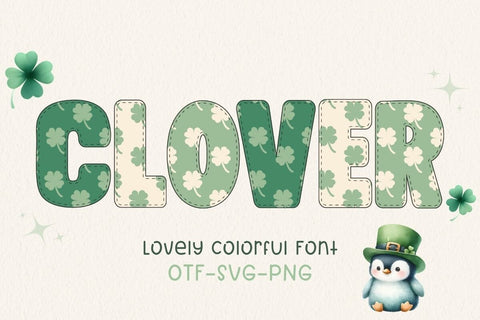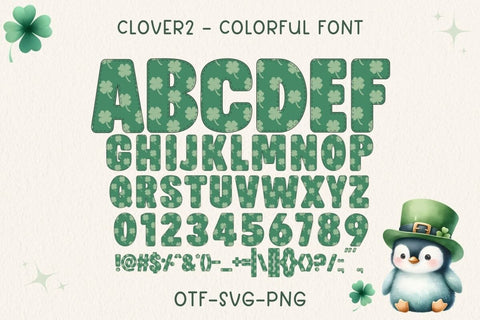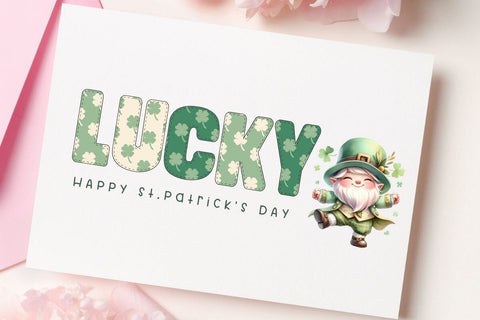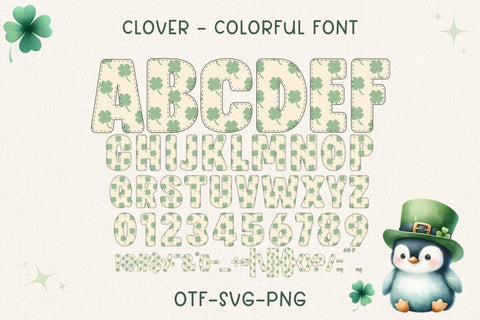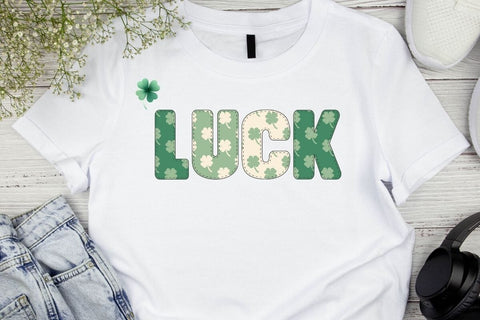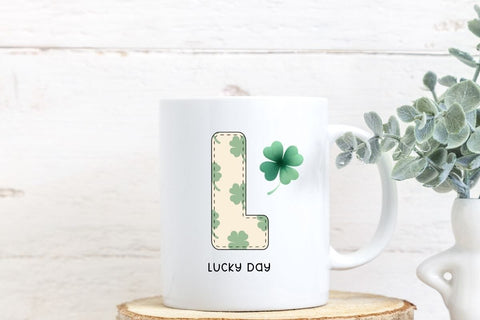
Clover - Color Font
Clover is a lovely colorful font perfect for all your St.Patrick’s day-themed projects. You can use it to design products such as banners, content, mugs, cards, shirts, stationery, social media posts, and more!
This font has 3 color sets.